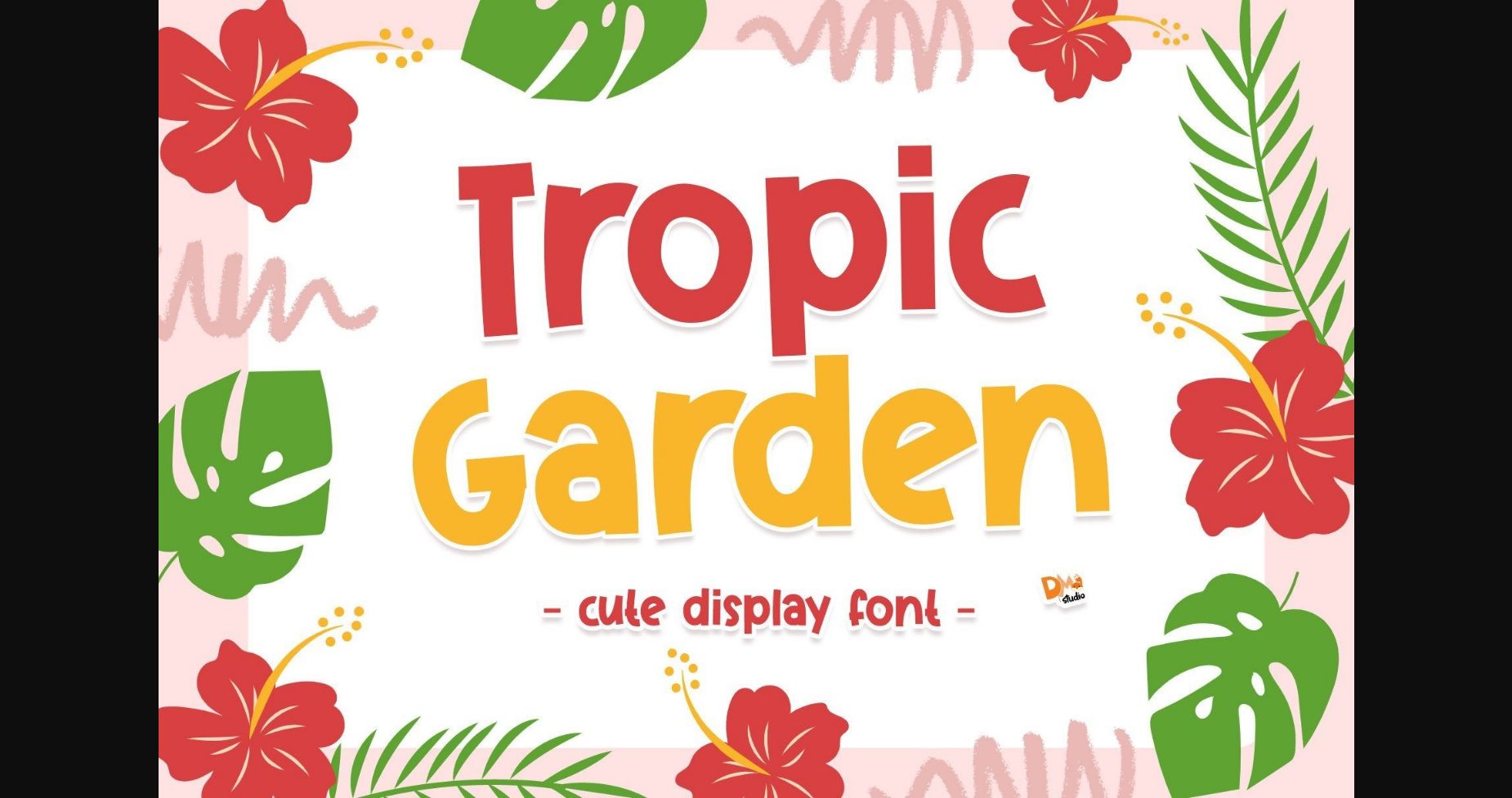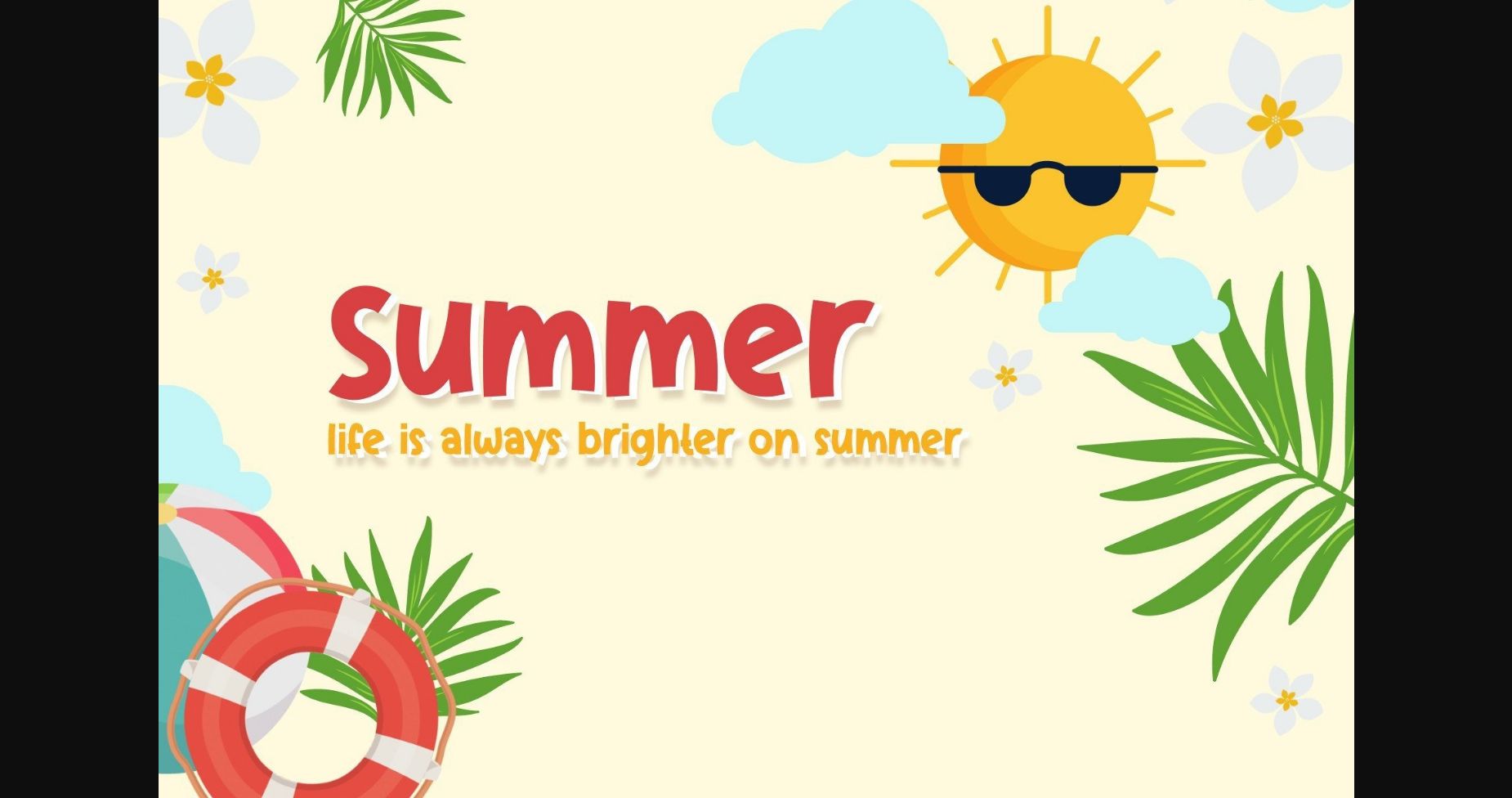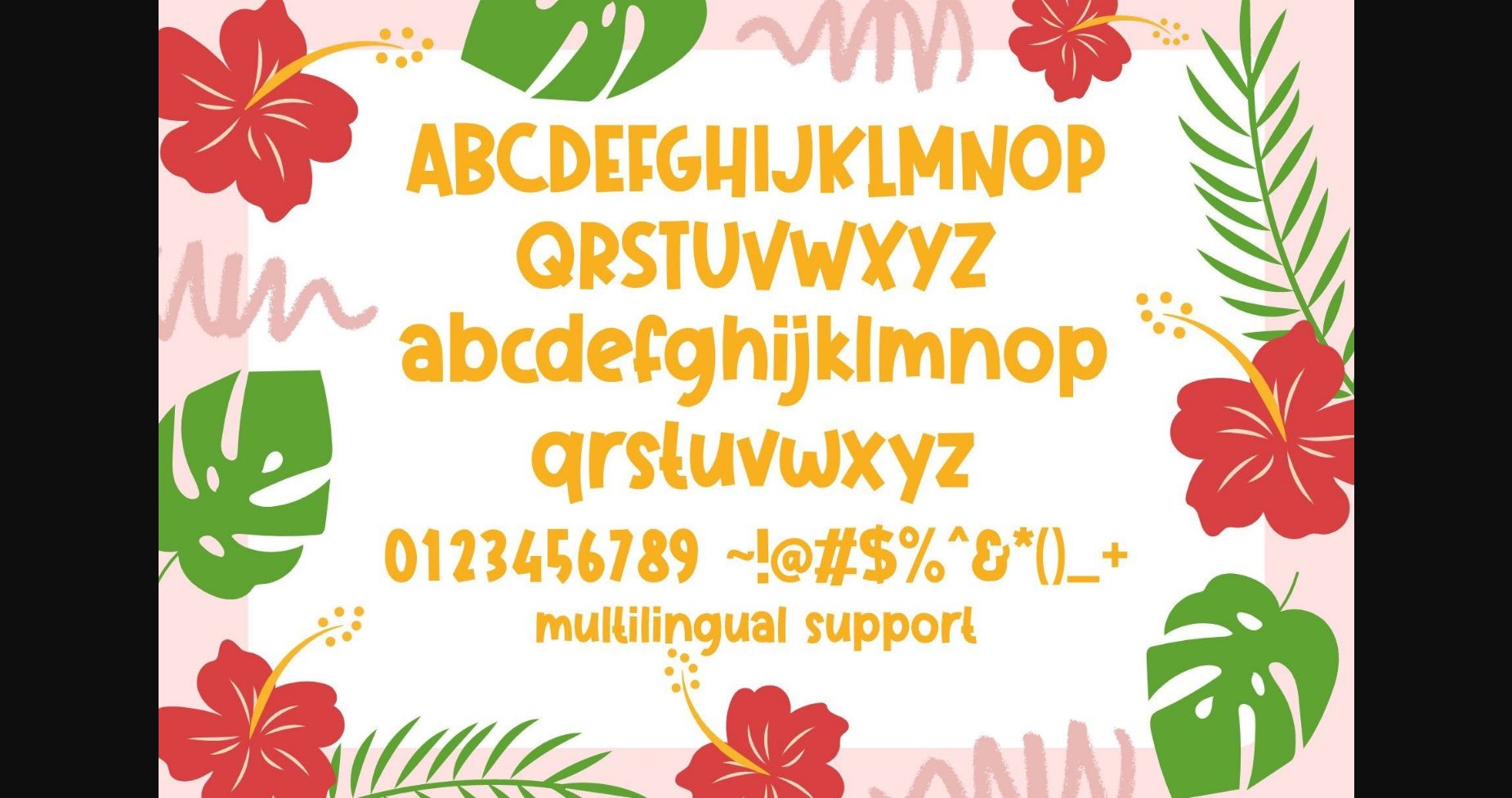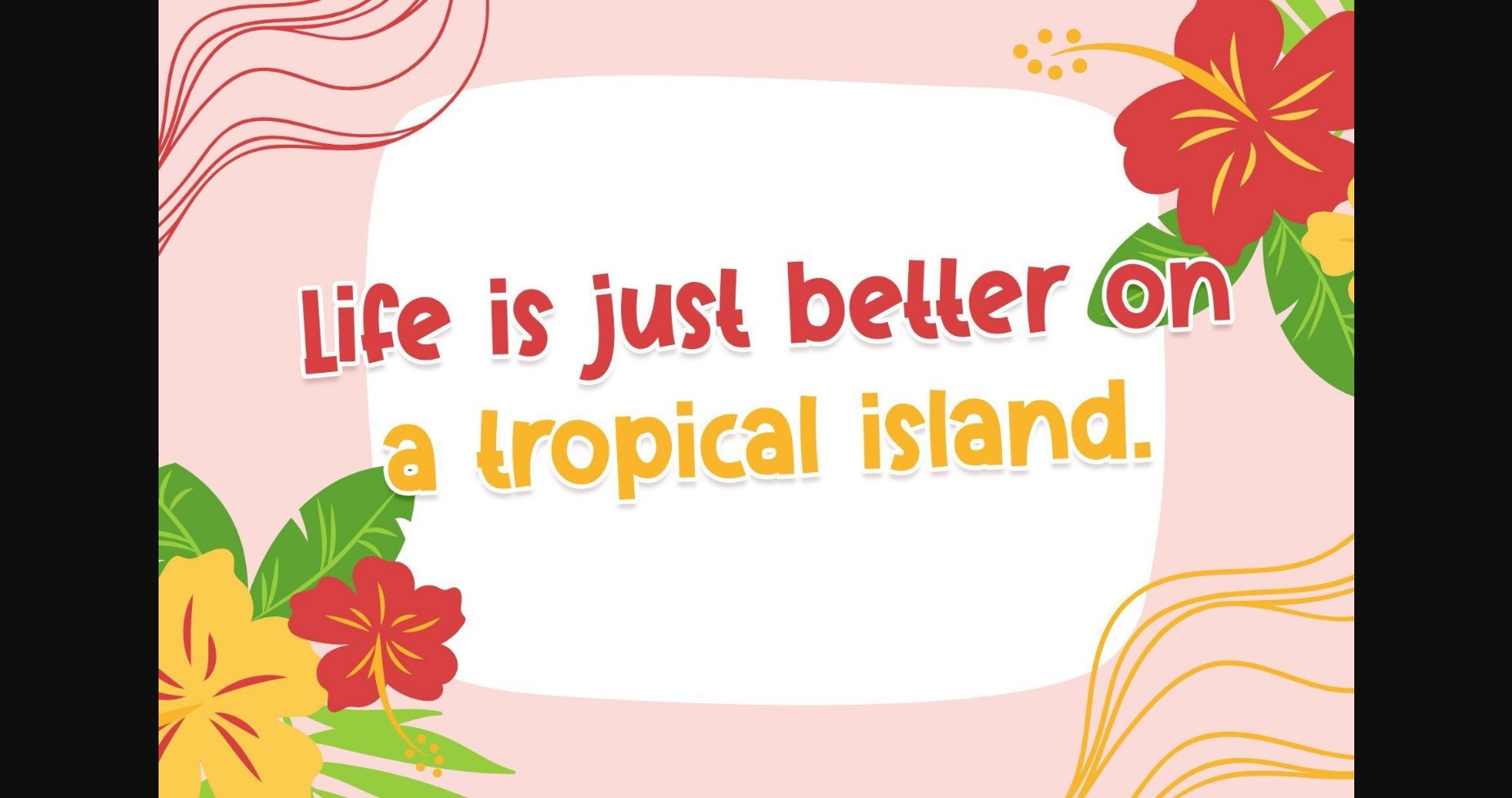
Tropic Garden Font
About Tropic Garden Font
Tropic Garden is a cute display font perfect for your collection. Versatile and fun, it will add that extra spark to your designs. Add it to any of your creative ideas, and it will make them stand out!